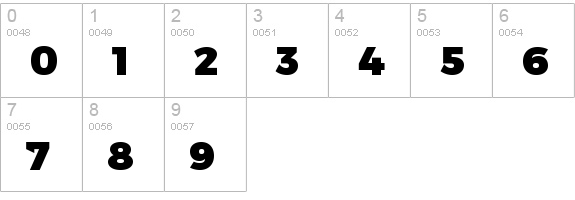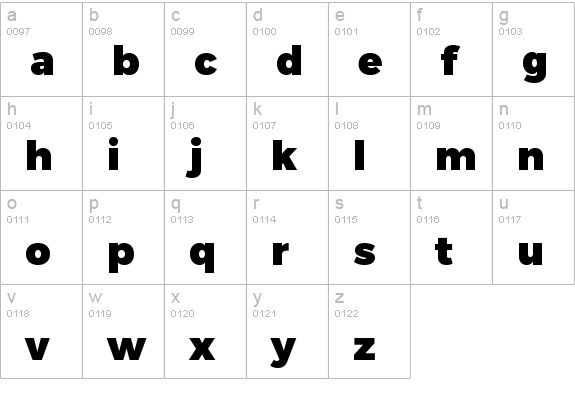
Trueno Black Font Details
Trueno Black is a maximum-weight, dramatic variant in the Trueno typeface family \xE2\x80\x94 well suited to maximum-impact headlines, posters, and packaging.
Trueno Black font is a bold and powerful typeface that exudes confidence and sophistication. With its sleek and modern design, it is perfect for making a strong statement in any project or design. This font features a unique combination of sharp lines and subtle curves, creating a visually striking display. Its thick strokes and generous spacing make it highly legible, ensuring readability even at smaller sizes. Trueno Black font is not only visually appealing but also versatile. It can be used across a wide range of applications, from headlines and titles to branding and advertising materials. Whether you're designing a logo, a poster, or a website, this font will add a touch of elegance and professionalism to your work. One of the best things about Trueno Black font is that it is freely available to download at FontsMarket.com. This means you can easily access and use this font without any hassle. Whether you're a professional designer or a hobbyist, you can take advantage of this high-quality font for your personal or commercial projects. So why wait? Enhance your designs and captivate your audience with the bold and striking Trueno Black font. Download it for free at FontsMarket.com and unleash your creativity today.